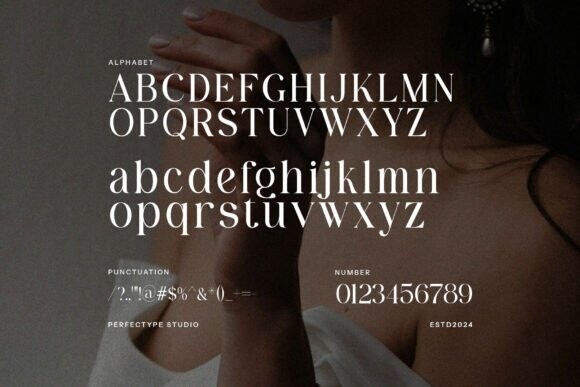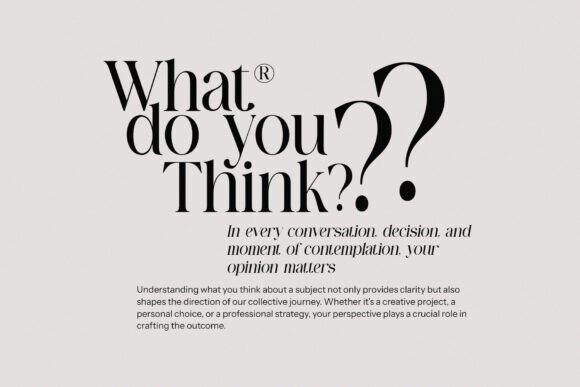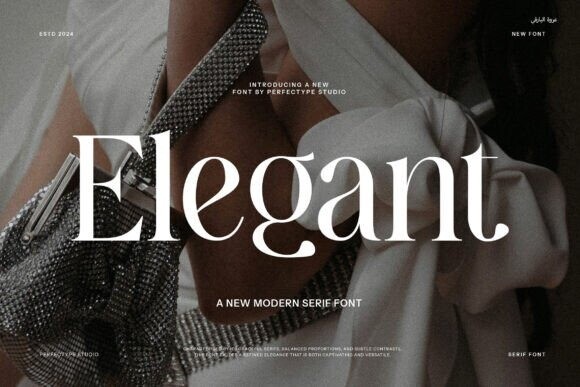
Elegant Modern Serif Font
Designer: Perfectype
Elegant Modern Serif Font: An elegant font has smooth, stylish letters with thin lines and graceful curves, giving it a classy and sophisticated look.